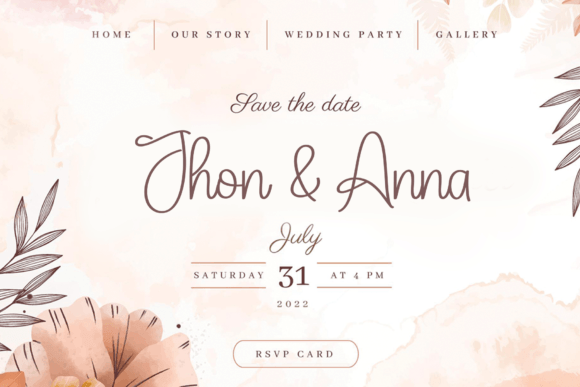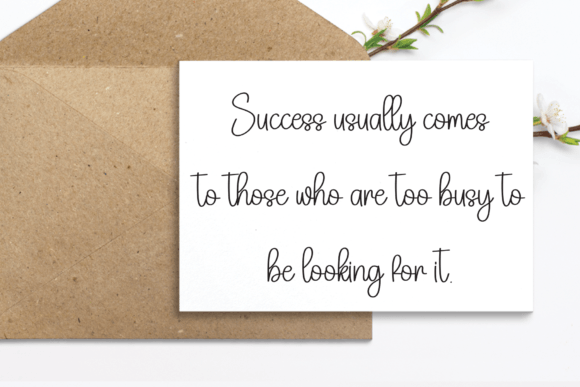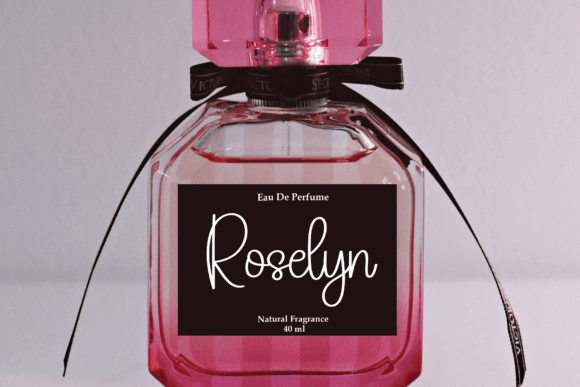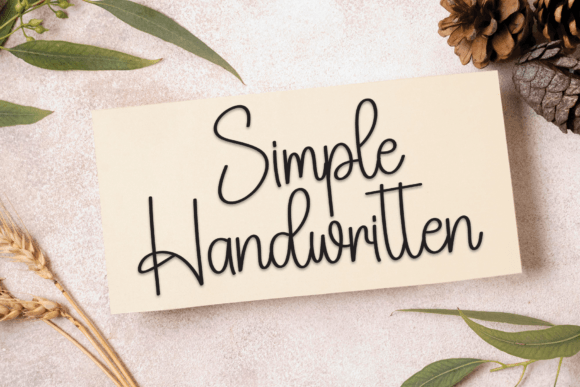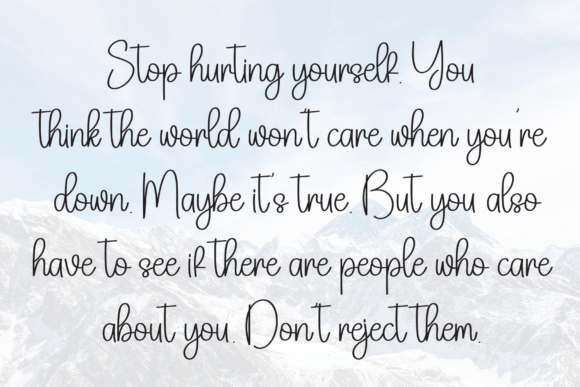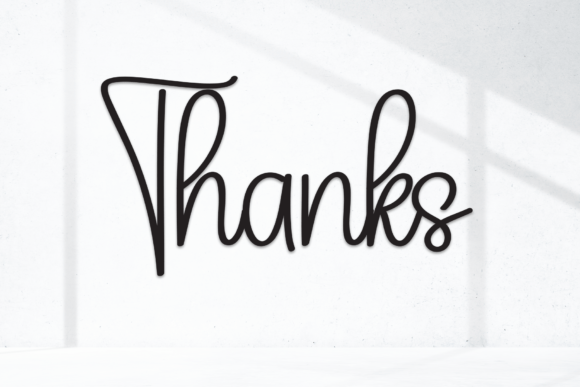
Bleaching Font: A Sweet and Friendly Handwritten Font for Your Designs
Bleaching Font is a charming and approachable handwritten font that has captured the hearts of designers and crafters alike. Its natural and unique style makes it an incredibly versatile font, suitable for a wide range of designs. Whether you’re working on a branding project, crafting a social media post, or creating a beautiful piece of art, Bleaching Font is the perfect choice to add a touch of personality and whimsy to your work.
The Characteristics of Bleaching Font
Bleaching Font boasts a distinctive handwritten style that exudes warmth and friendliness. Its letters are carefully crafted to resemble the imperfections of handwritten text, giving it a delightfully organic feel. The font’s natural and unique style makes it stand out from more traditional fonts, allowing designers to add a personal touch to their work.
The Benefits of Using Bleaching Font
So, what makes Bleaching Font so special? Here are just a few benefits of using this lovely font in your designs:
- Versatility: Bleaching Font is incredibly versatile, making it suitable for a wide range of designs, from branding and advertising to social media and crafting.
- Uniqueness: The font’s natural and unique style ensures that your designs will stand out from the crowd and capture the attention of your audience.
- Friendliness: Bleaching Font has a warm and approachable feel, making it perfect for designs that require a personal touch.
- Easy to Read: Despite its handwritten style, Bleaching Font is surprisingly easy to read, making it suitable for both headings and body text.
How to Use Bleaching Font in Your Designs
So, how can you incorporate Bleaching Font into your designs? Here are a few ideas to get you started:
- Branding: Use Bleaching Font as a logo font or for branding materials, such as business cards and brochures, to add a personal touch to your brand.
- Social Media: Add a touch of personality to your social media posts with Bleaching Font, perfect for creating engaging and eye-catching content.
- Crafting: Use Bleaching Font for crafting projects, such as making cards, gift tags, and other DIY crafts.
- Advertising: Use Bleaching Font in advertising materials, such as flyers and posters, to add a friendly and approachable feel to your campaigns.
Tips for Getting the Most Out of Bleaching Font
To get the most out of Bleaching Font, here are a few tips to keep in mind:
- Experiment with Colors: Bleaching Font looks great in a variety of colors, so don’t be afraid to experiment and find the perfect hue for your design.
- Mix and Match: Combine Bleaching Font with other fonts to create a unique and eye-catching design.
- Play with Sizes: Use Bleaching Font in different sizes to create visual interest and add emphasis to certain elements of your design.
Bleaching Font is a sweet and friendly handwritten font that is sure to capture the hearts of designers and crafters alike. Its natural and unique style makes it incredibly versatile, suitable for a wide range of designs. With its warmth, friendliness, and ease of use, Bleaching Font is the perfect choice for adding a personal touch to your work. So why not give it a try and see the difference it can make in your designs?